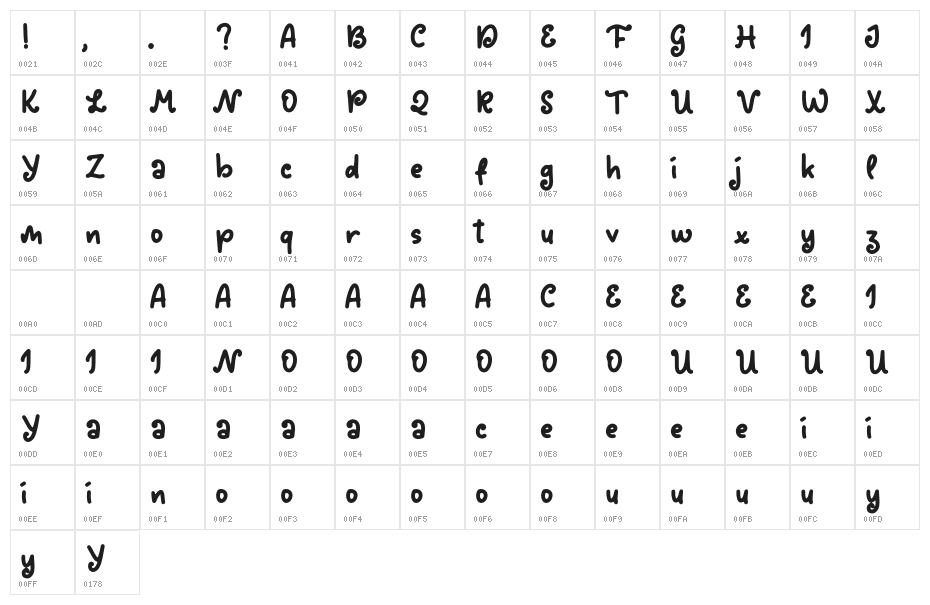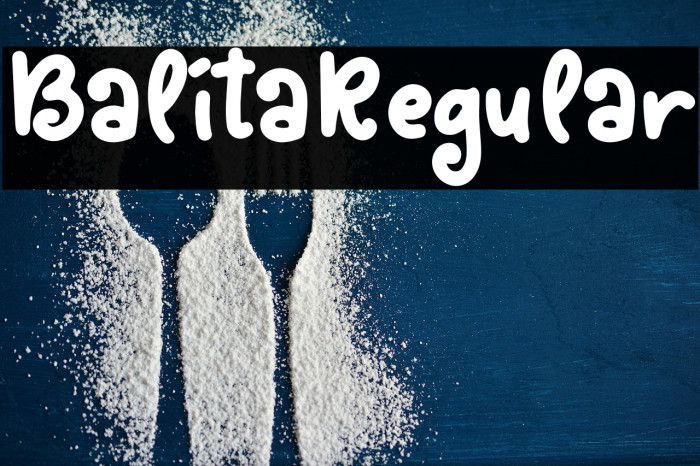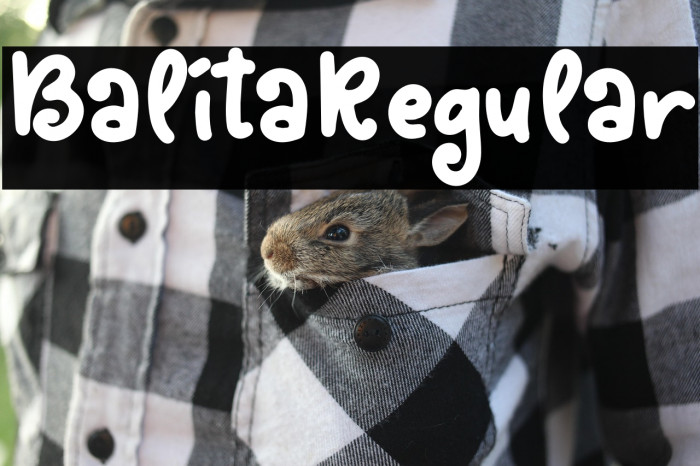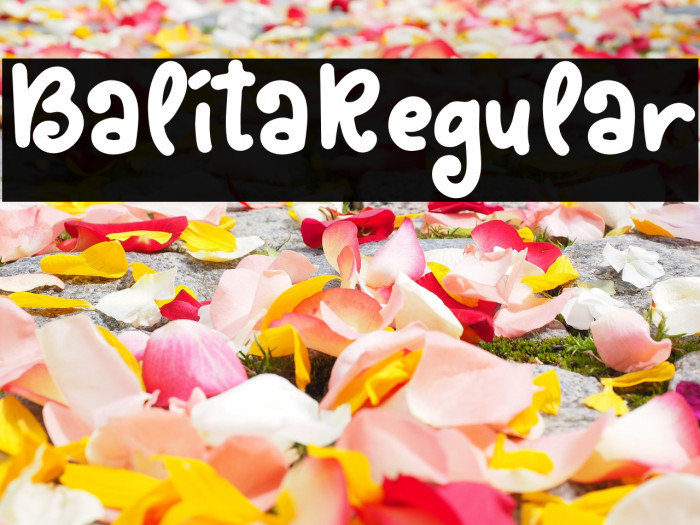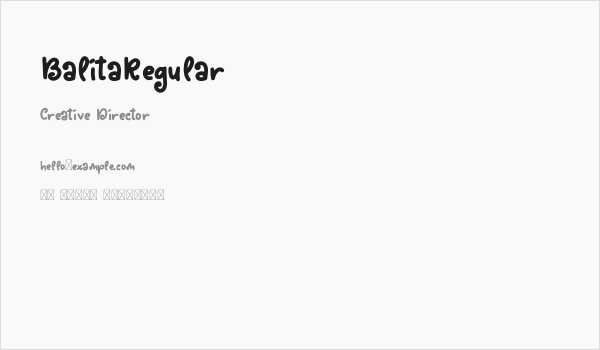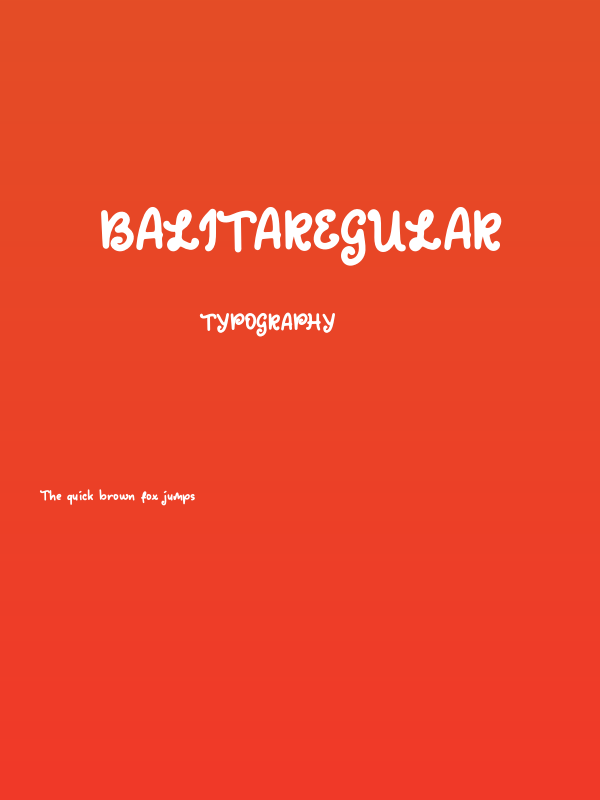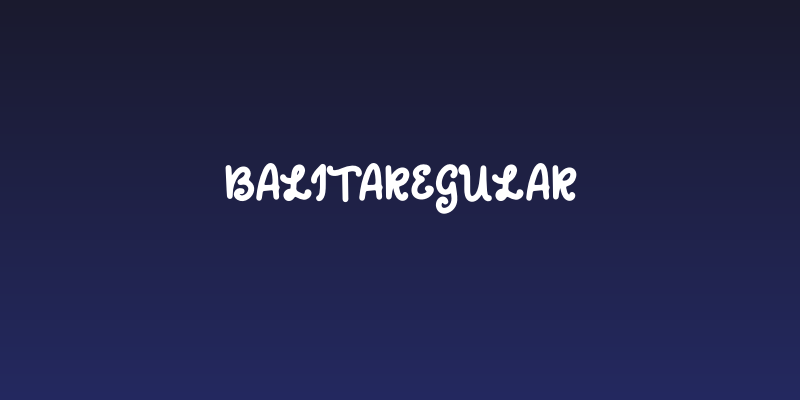
BalitaRegular Font
BalitaRegular Description
This playful and bold font features a handwritten style with smooth, rounded edges and a lively character. The uppercase letters are slightly larger and more pronounced, while the lowercase letters maintain a consistent flow and rhythm. The font's whimsical nature is enhanced by its slightly irregular shapes, giving it a friendly and approachable feel. The characters are well-spaced, ensuring readability, and the overall design is both modern and fun, making it suitable for a variety of creative projects.
| Overall Style | Playful, Modern |
| Proposed Projects | Ideal for children's books, playful branding, greeting cards, and creative posters. |